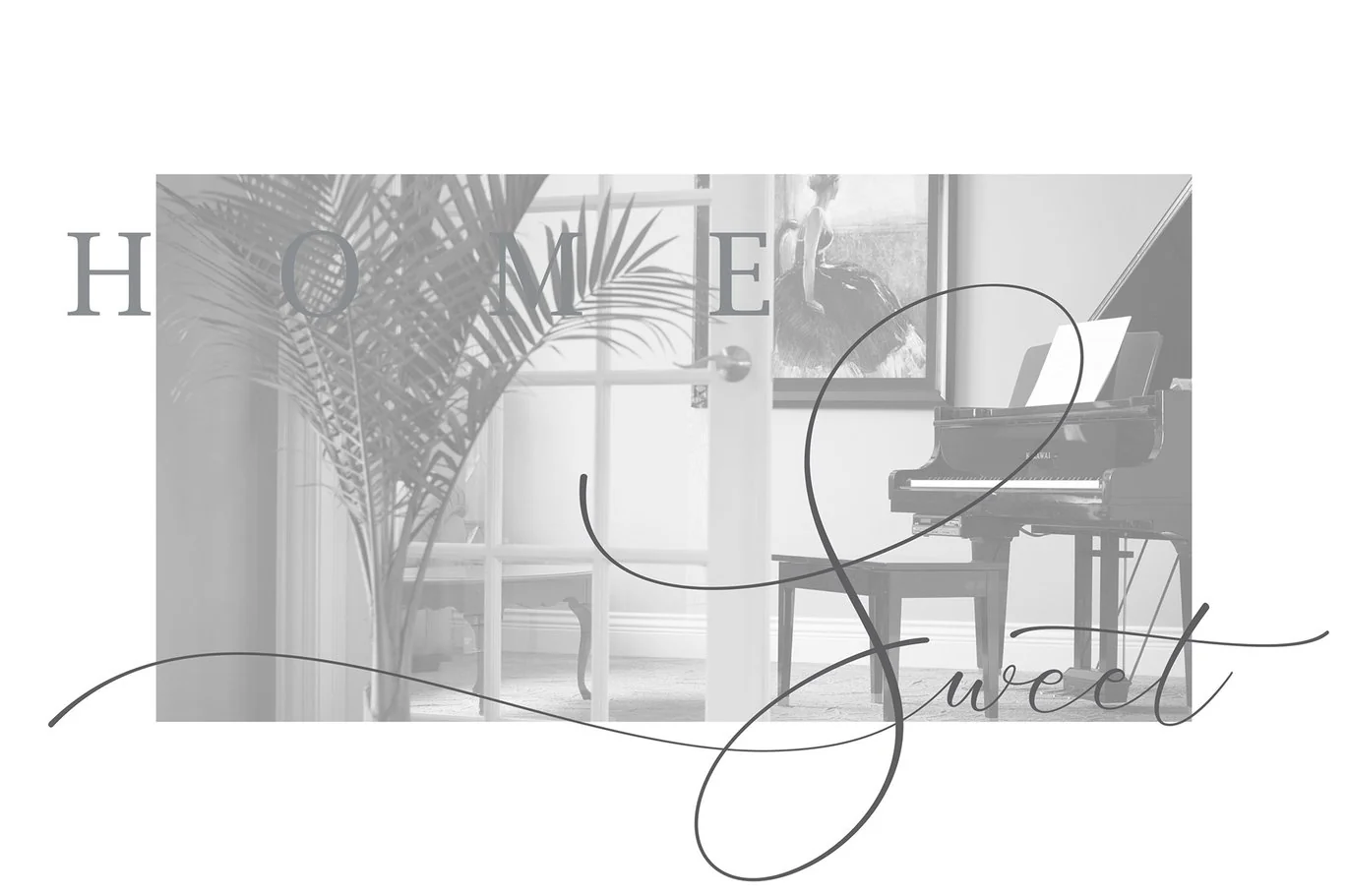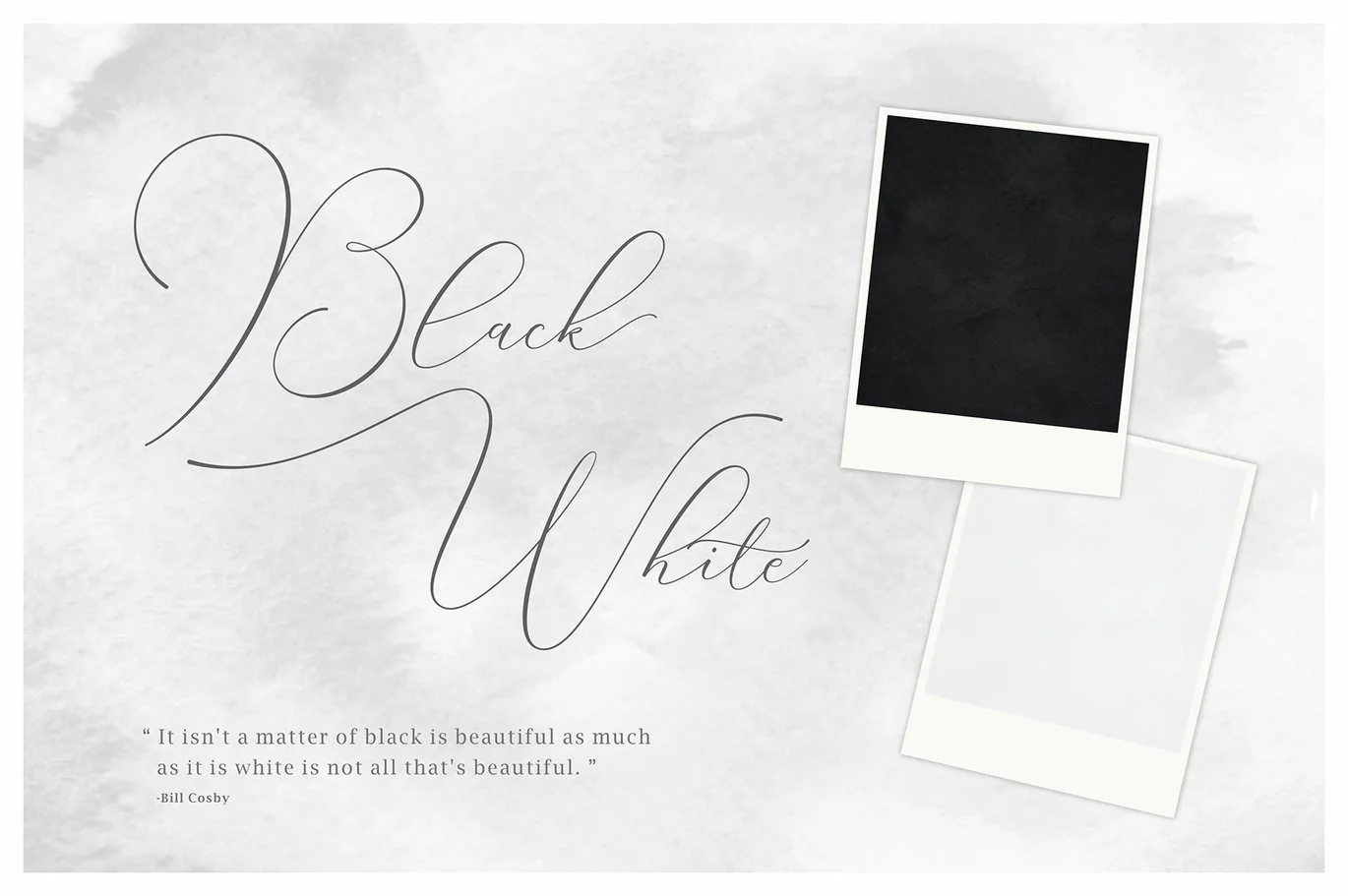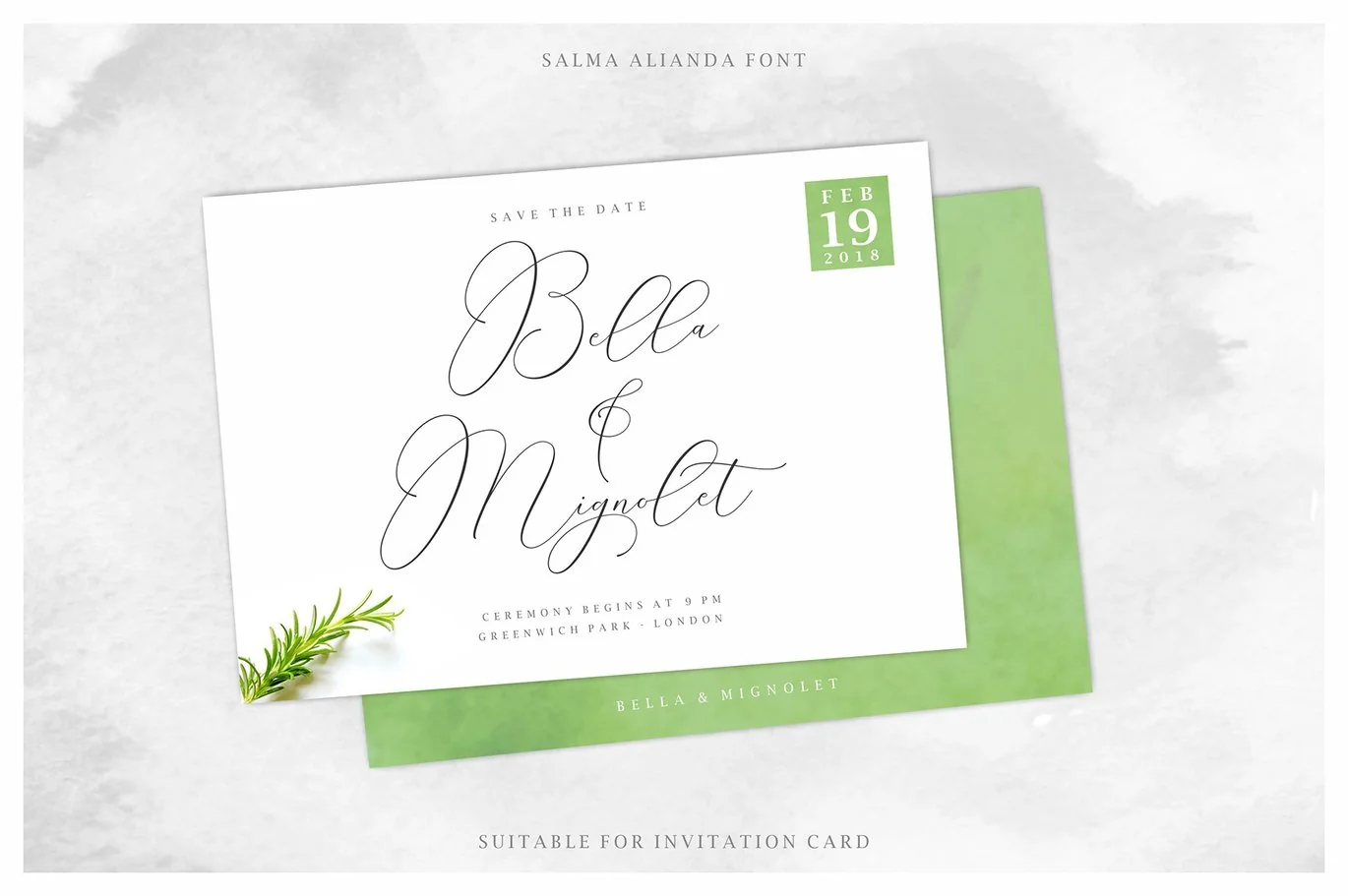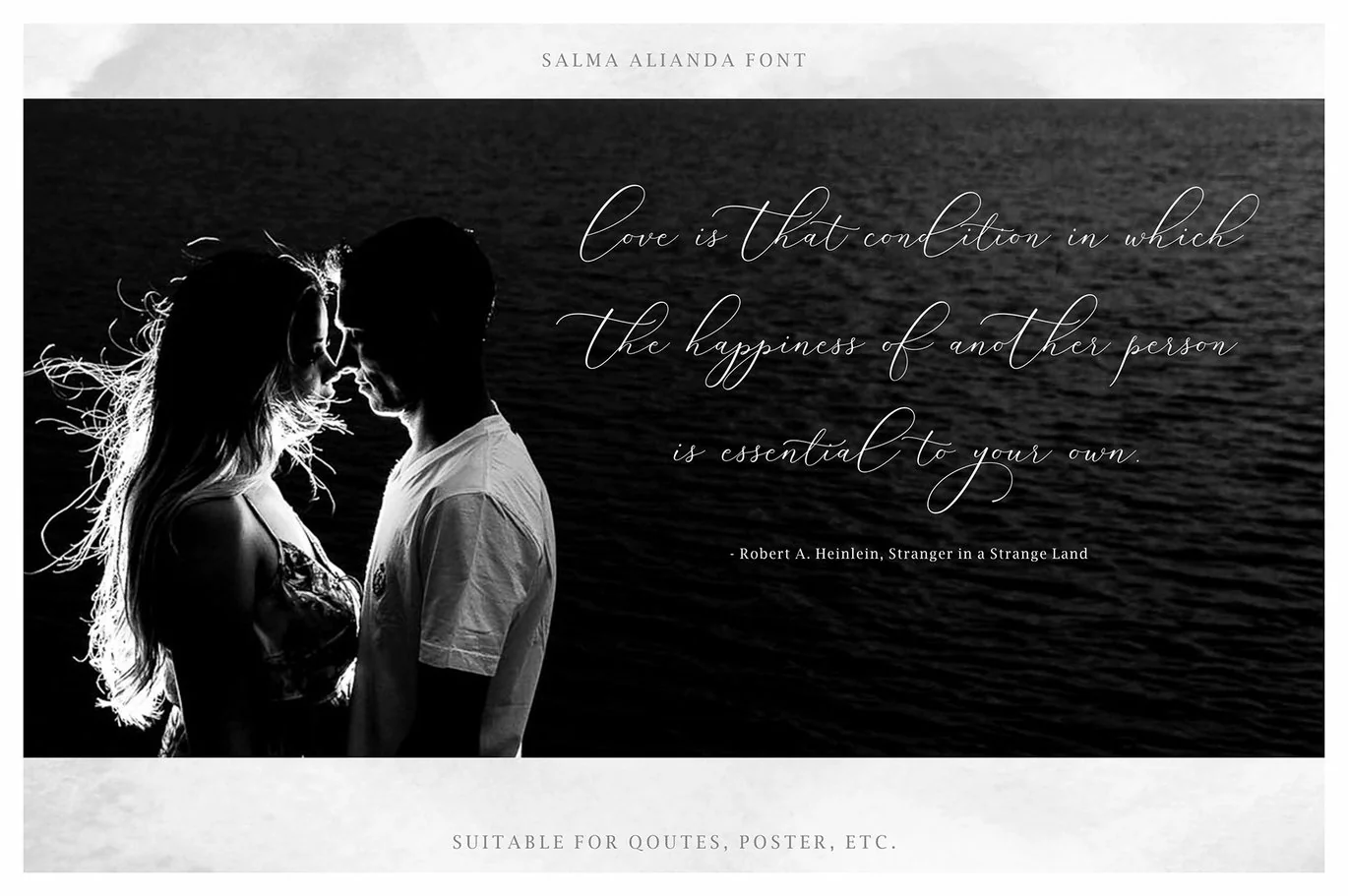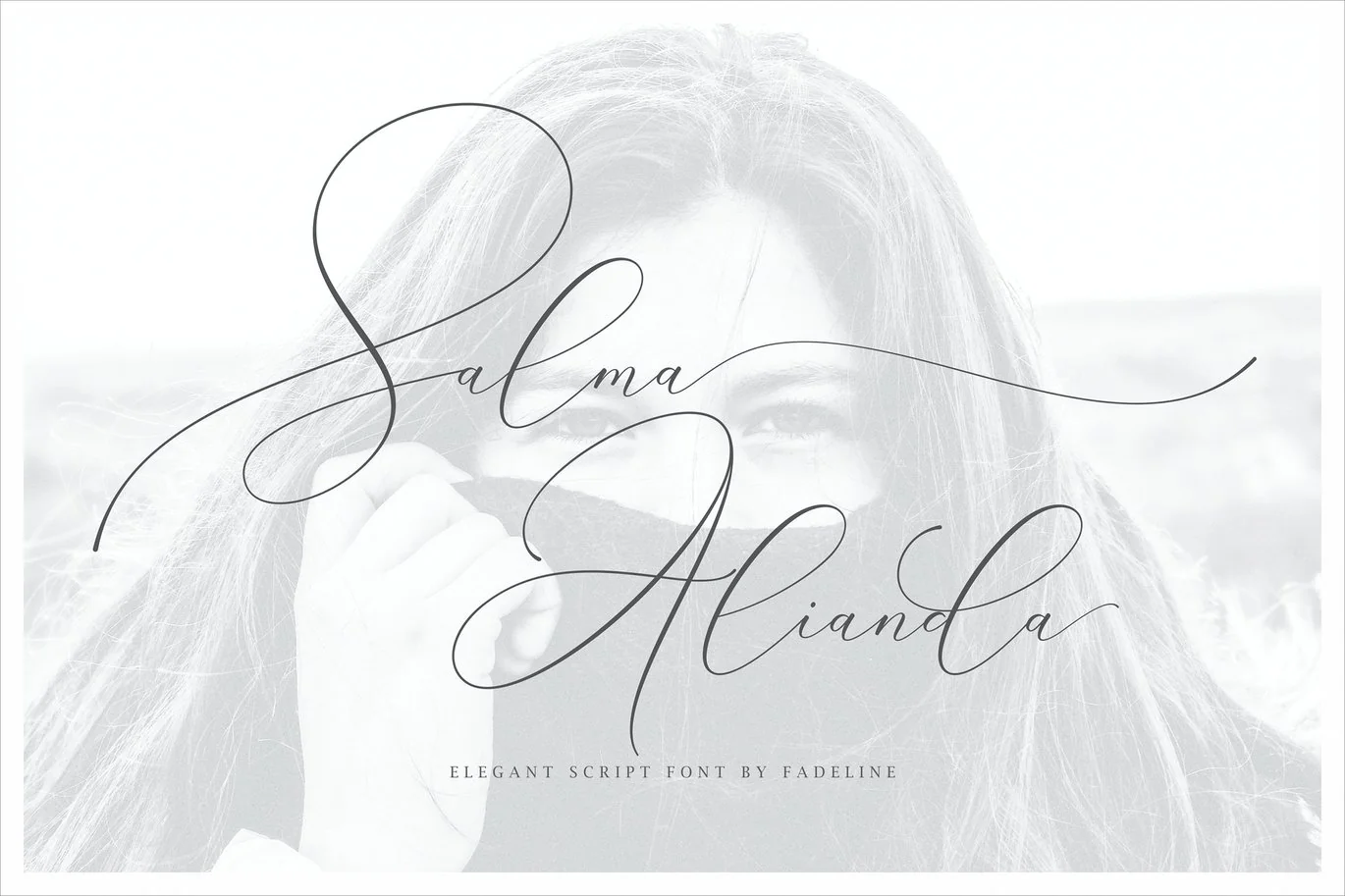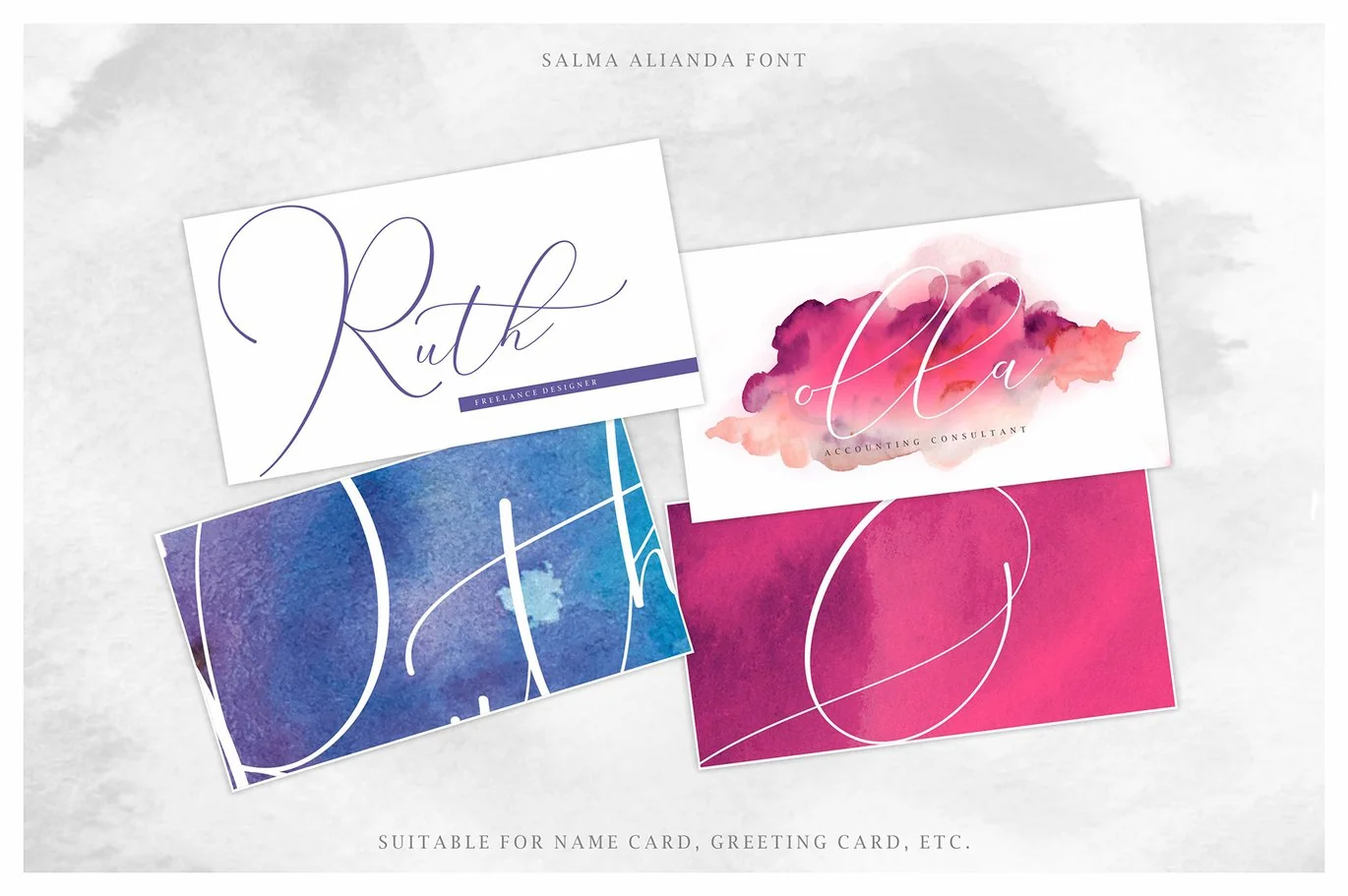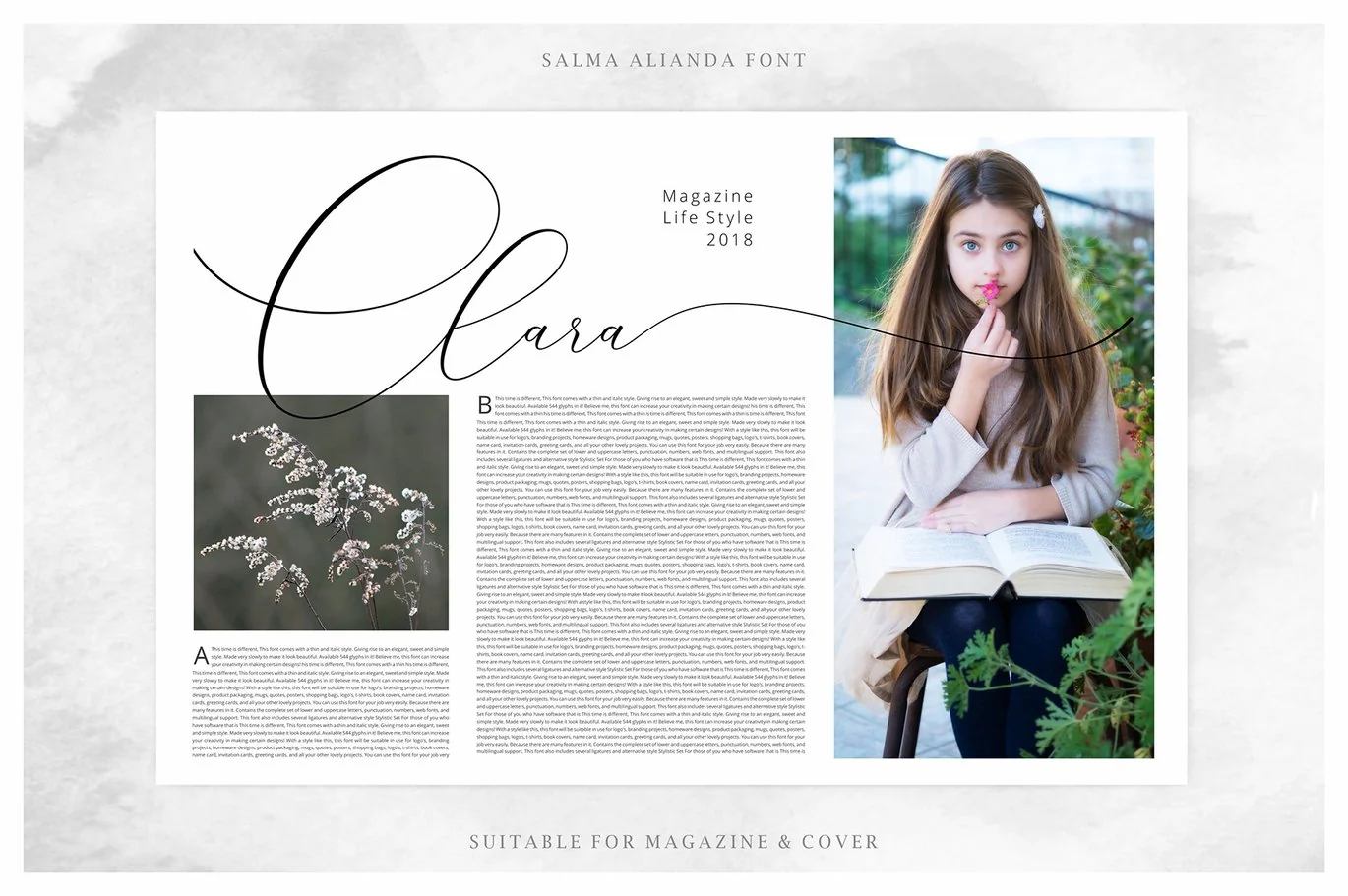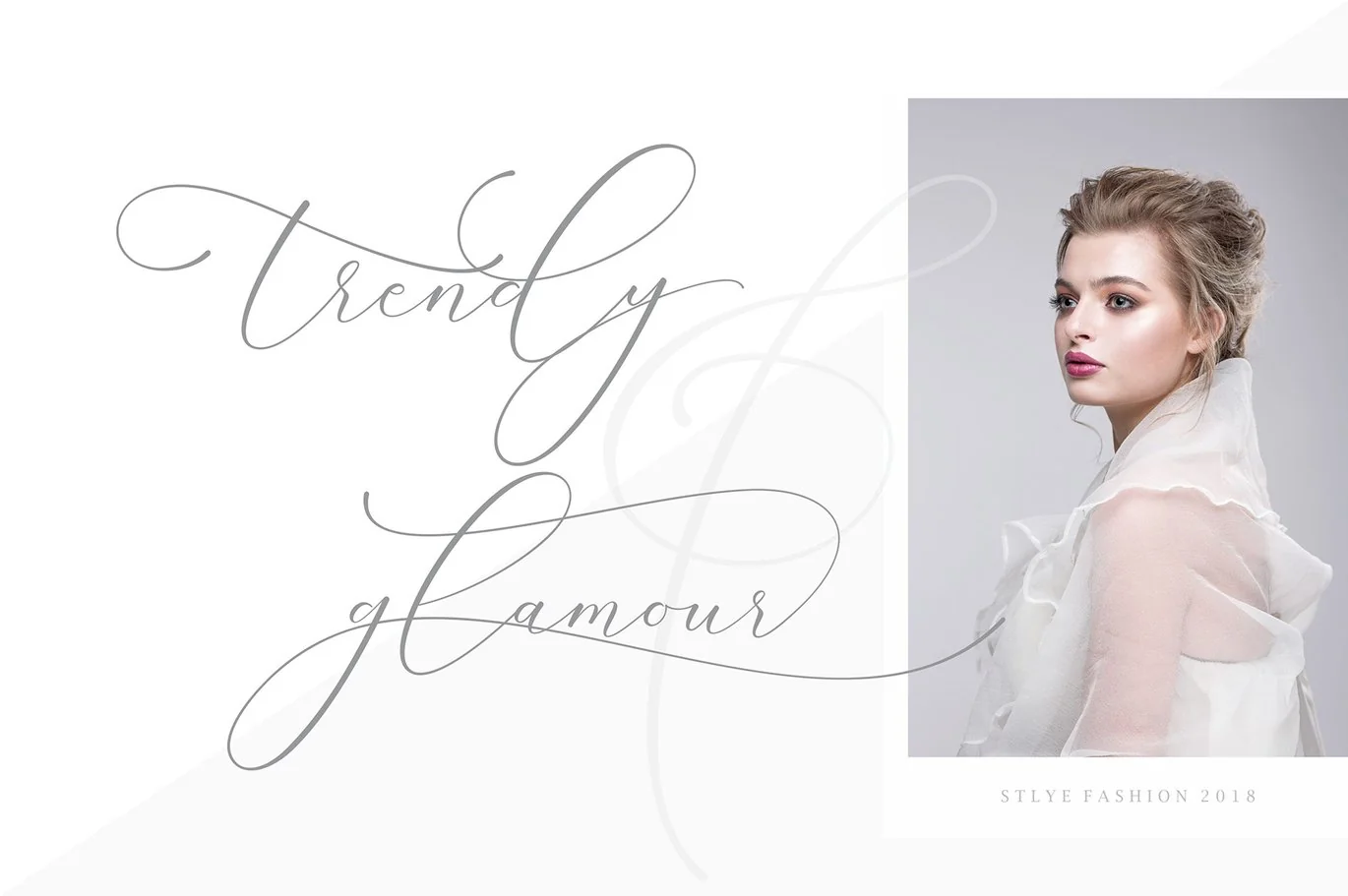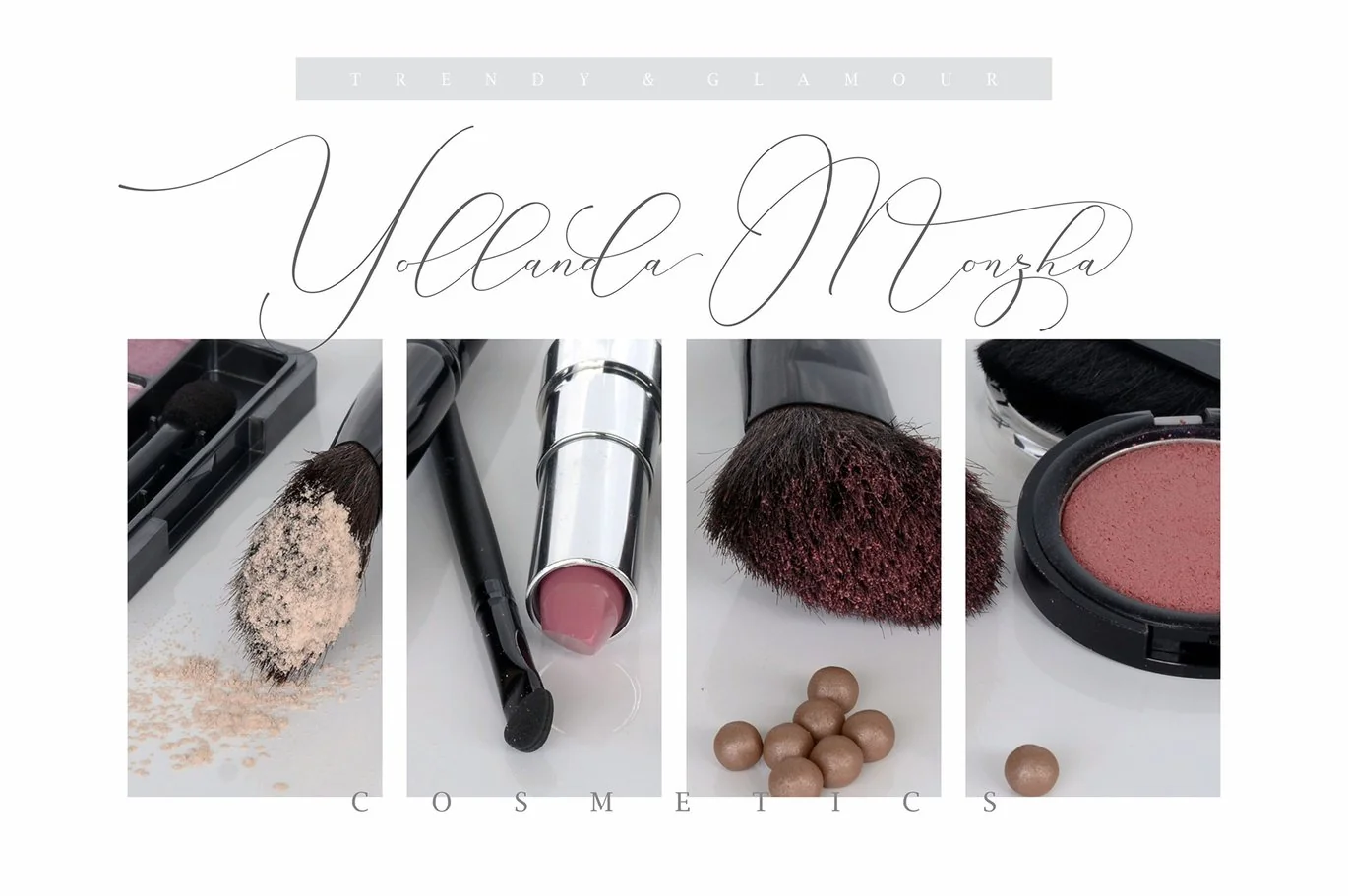
Salma Alianda – Elegant Font Script
Present again the my latest font, Introduce Salma Alianda Script!
This is a modern font script. This font comes with a thin and italic style, made very slowly to get a neat result so it will create a very elegant impression on this font. Available 508 glyphs in it! so you can get used it freely and follow the current trend. Please try and hopefully you enjoy it!
With a style like this, this font will be suitable in use for logo’s, branding projects, homeware designs, product packaging, mugs, quotes, posters, shopping bags, logo’s, t-shirts, book covers, name card, invitation cards, greeting cards, and all your other lovely projects.
You can use this font for your job very easily. Because there are many features in it. Contains the complete set of lower and uppercase letters, punctuation, numbers, web fonts, and multilingual support. This font also includes several ligatures and alternative style Stylistic Set For those of you who have software that is capable of working OpenType (Corel Draw / Photoshop / Illustrator / InDesign).